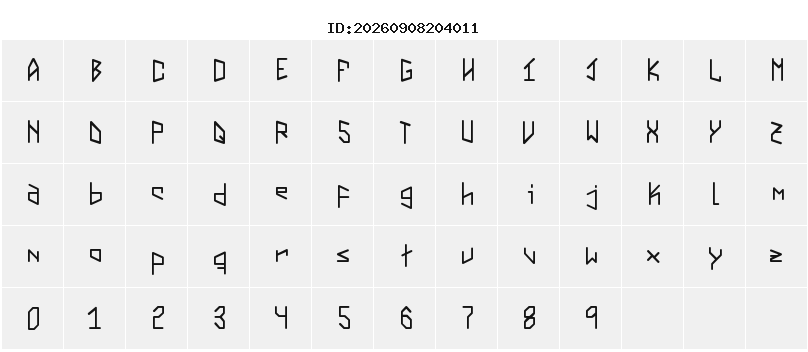
VirtualVectorVortex Preview
About VirtualVectorVortex.ttf
VirtualVectorVortex.ttf is a modern, elegant sans-serif font designed for ultimate readability and visual harmony. Perfect for branding, headlines, web design, and print materials.